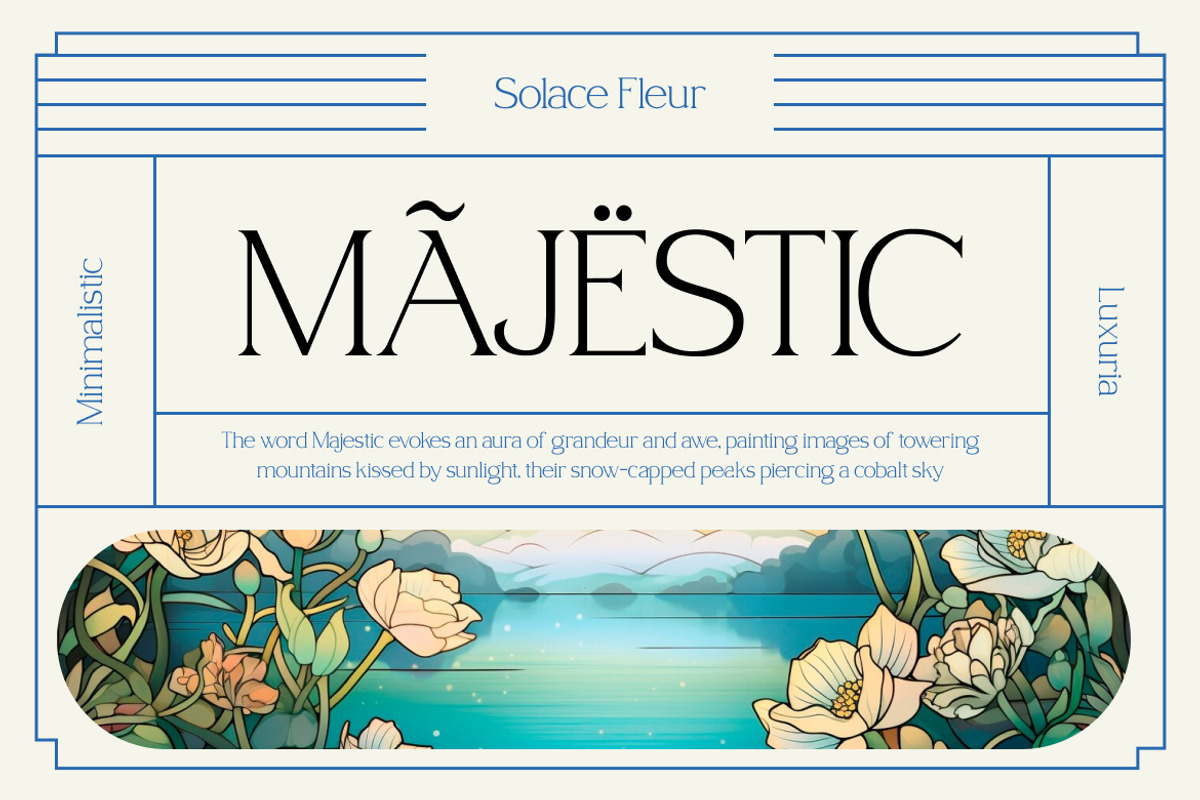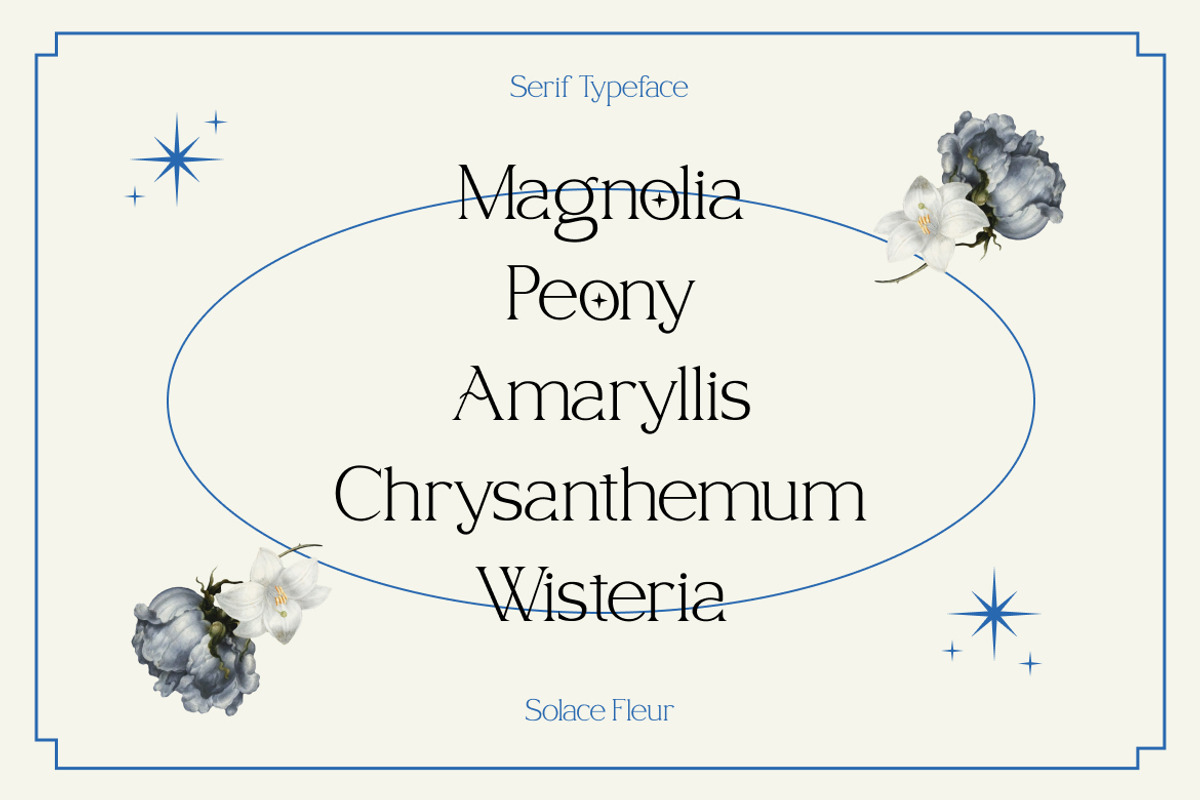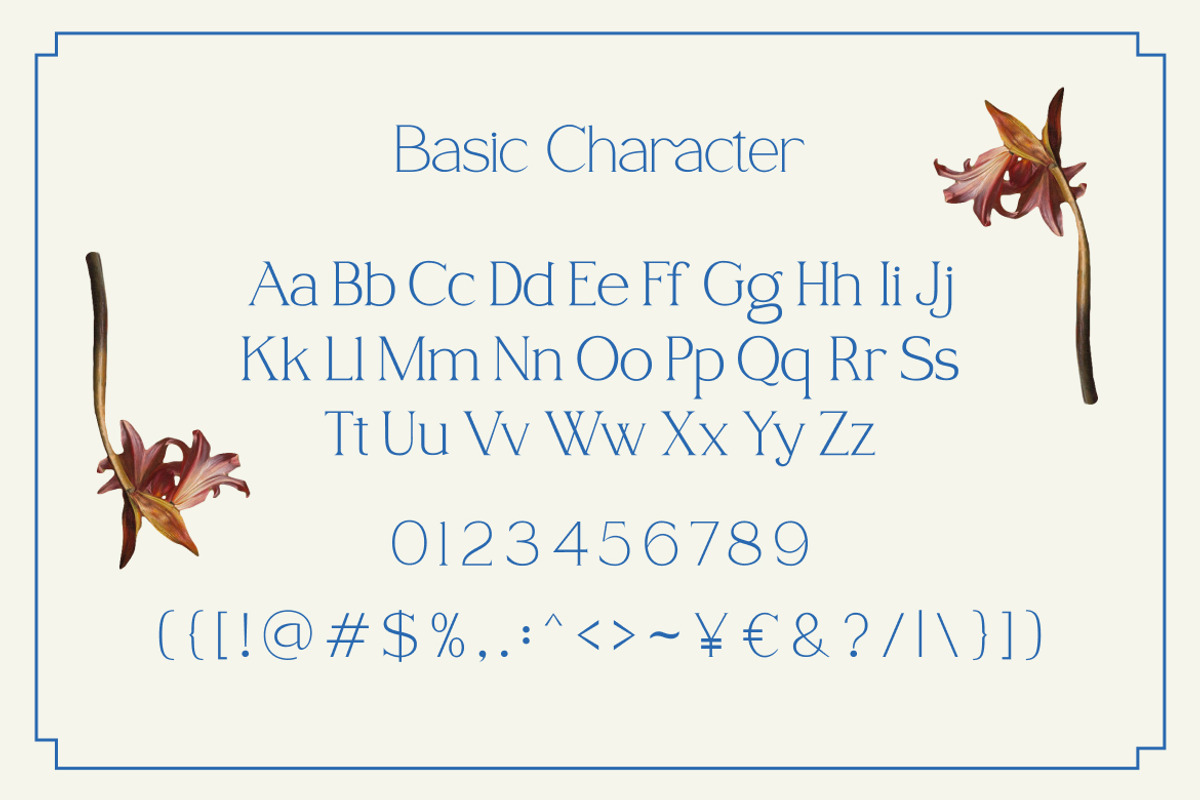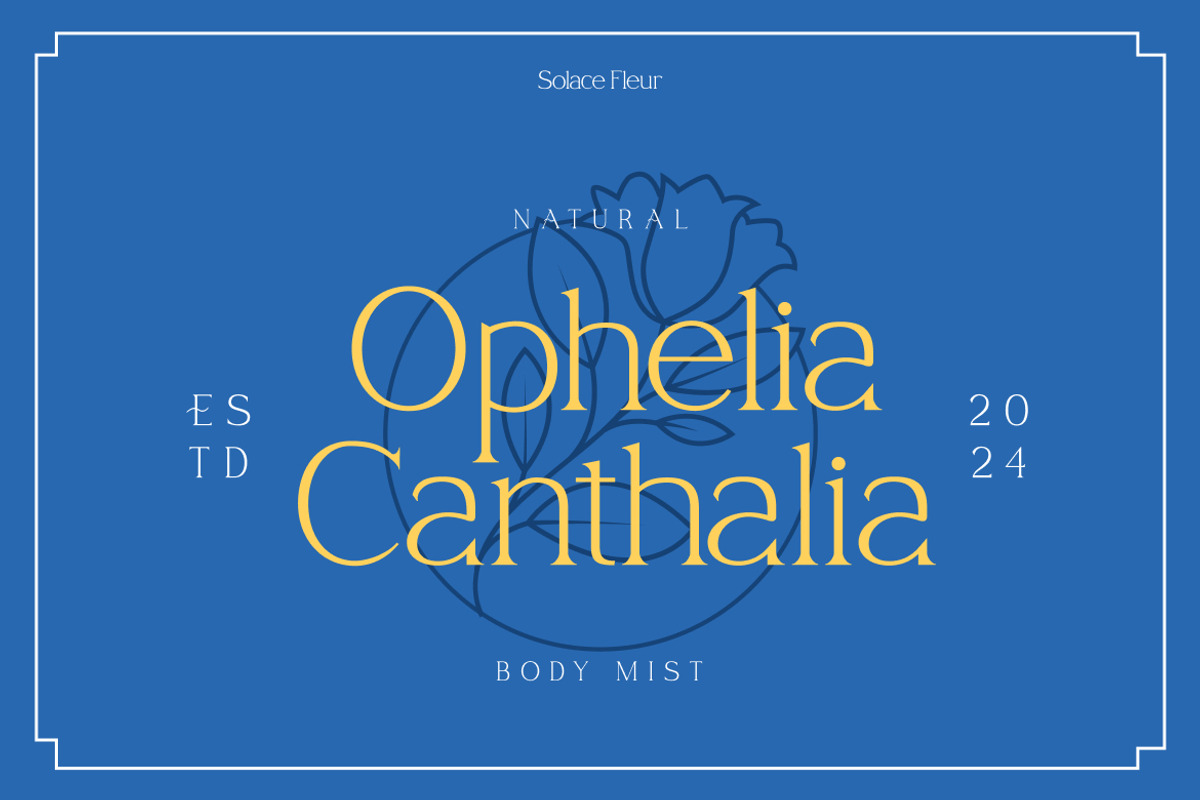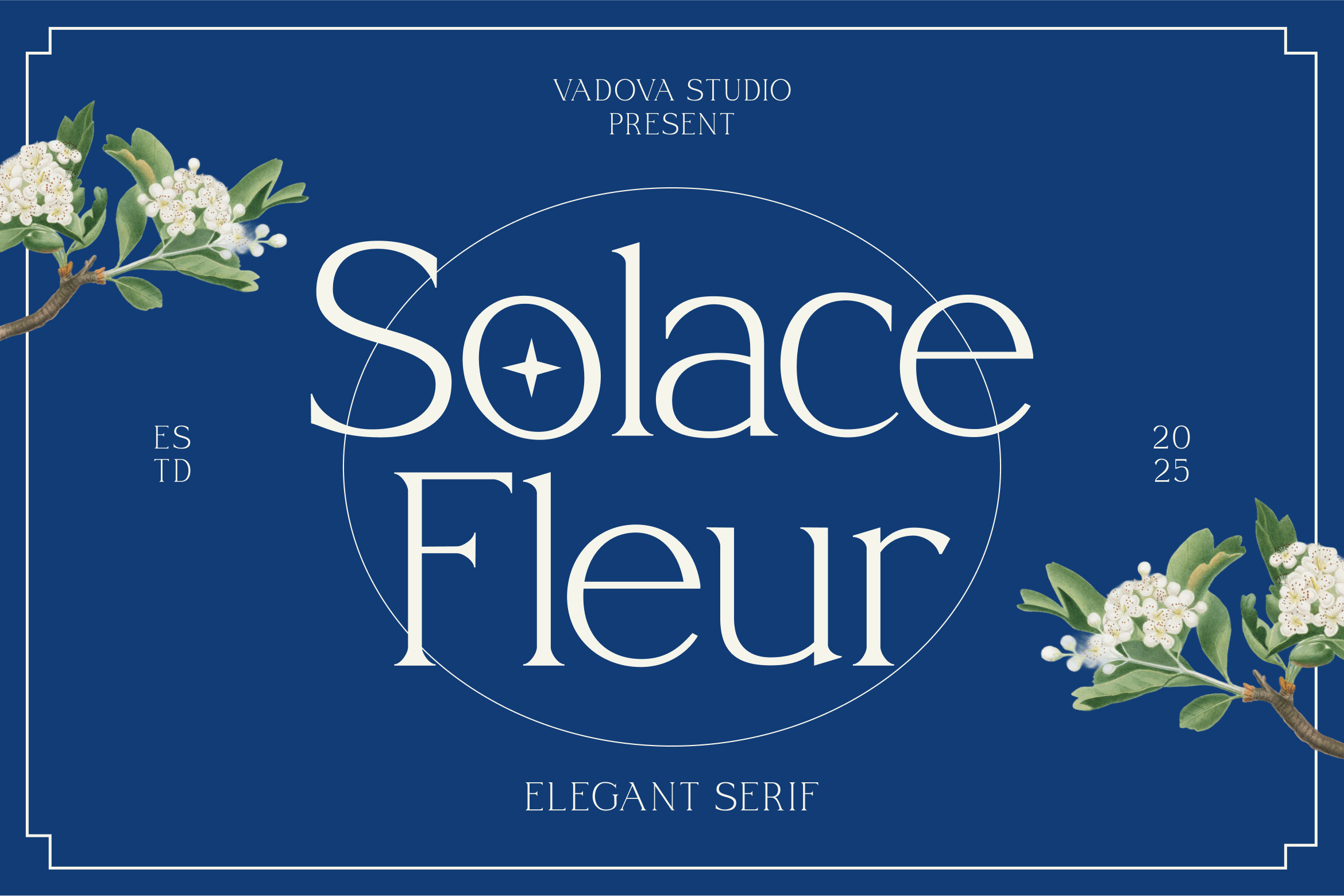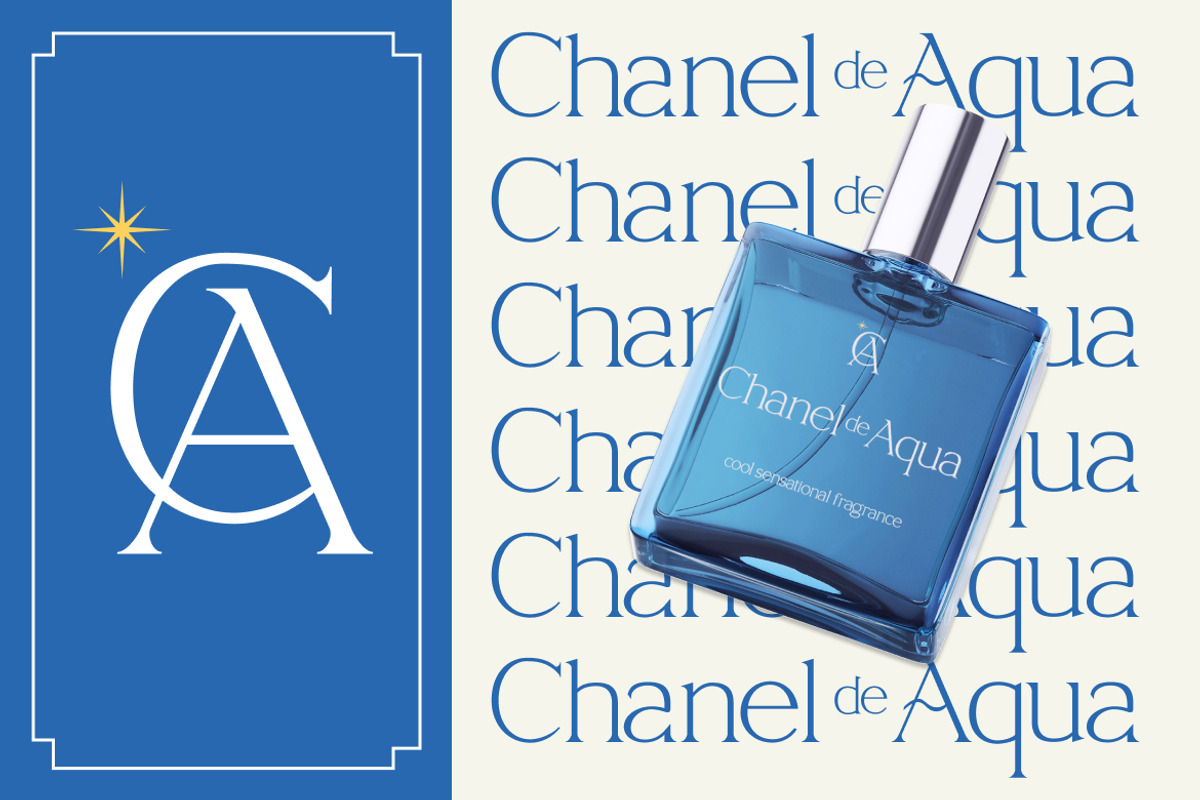
Solace Fleur – Elegant Serif Font
Solace Fleur is a refined serif font that blends timeless elegance with delicate modern detail. Its graceful curves and high-contrast strokes create a sophisticated look, while the subtle ornamental touches add a sense of artistry and femininity. Designed for beauty and impact, this typeface makes every design feel elevated and graceful.
This typeface captures elegance and versatility—ideal for projects where style, refinement, and creative flair are essential. From fashion branding to wedding invitations, floral packaging, and editorial layouts, Solace Fleur brings a timeless charm that resonates across premium design projects.
Why Designers Love It:
Elegant serif structure with refined letterforms.
Balanced high-contrast strokes for a dramatic yet clean appeal.
Delicate ornamental touches for a creative, feminine vibe.
Perfect harmony of timeless serif tradition and modern sophistication.
Best Use Cases:
Fashion & Beauty Branding
Wedding Invitations & Stationery
Luxury Packaging & Labels
Floral-Themed Branding & Design
Editorial & Magazine Covers
High-End Marketing Campaigns